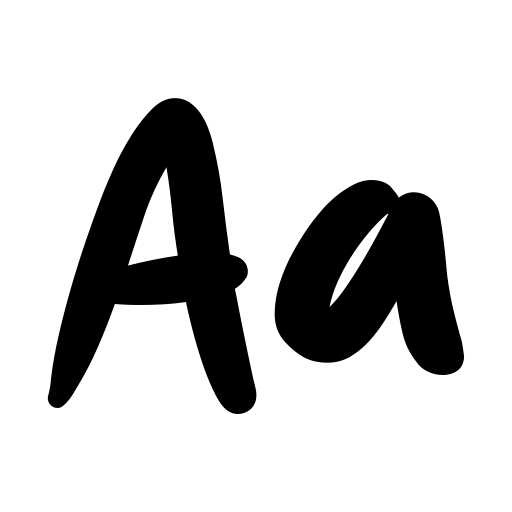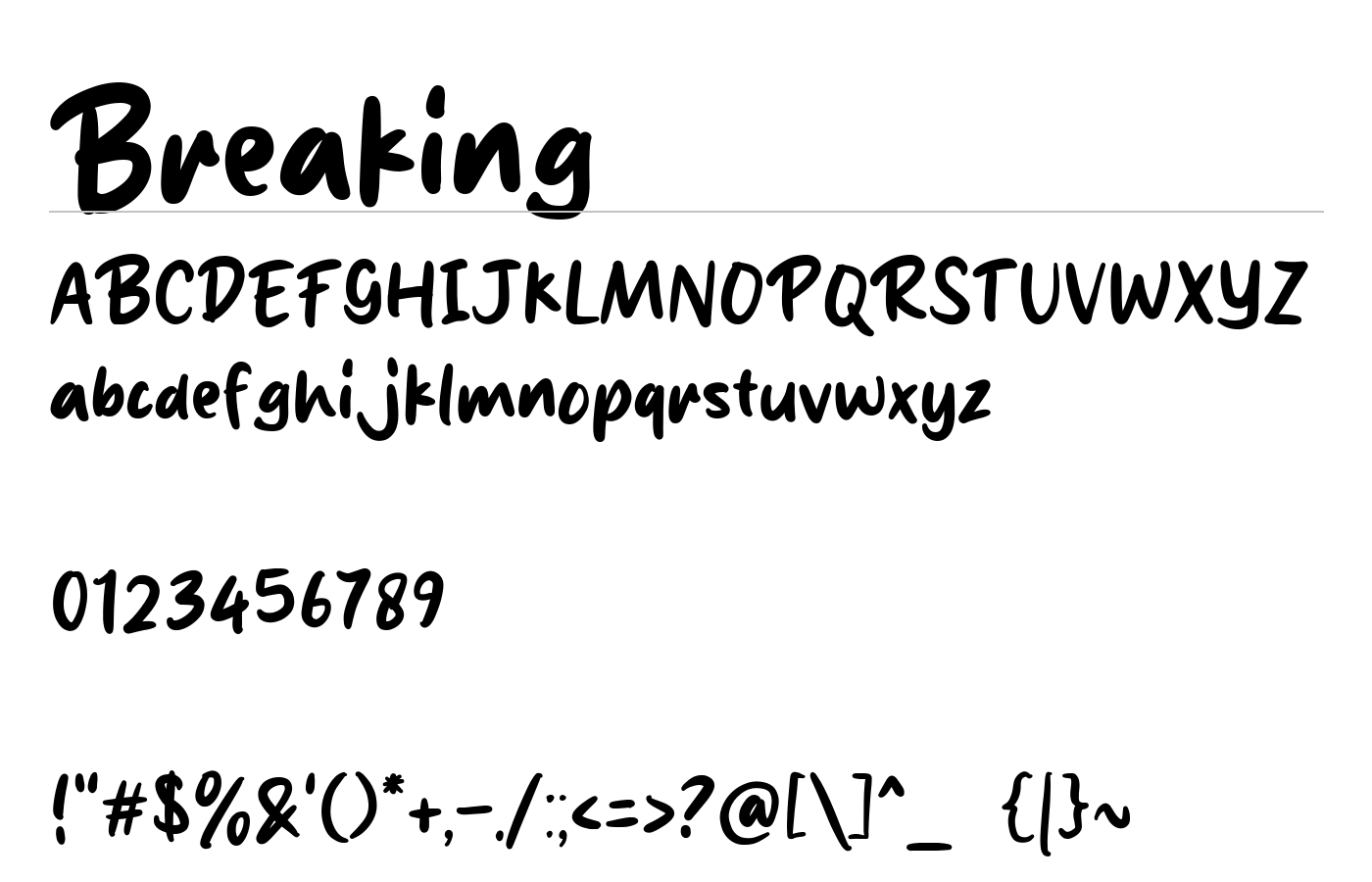
Breaking Font is a bold, playful handwritten sans serif that feels casual and friendly with its smooth, rounded strokes and slightly uneven letterforms. Its lively style works great for creative projects, informal branding, and headlines where a personal, approachable vibe is needed. This font shines in designs wanting a warm, energetic, and human touch.
Breaking Font
About Breaking Font